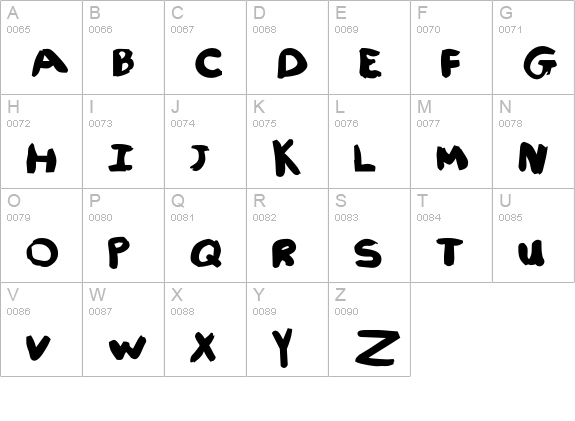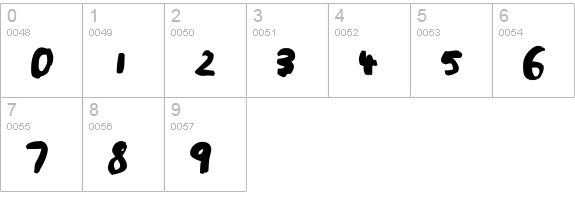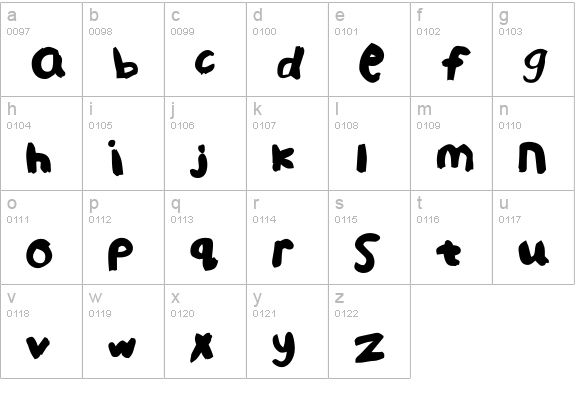
ChildsPlay-AgeNine font is a playful and whimsical typeface perfect for capturing the imagination of young children. With its charming and carefree design, this font brings a sense of joy and creativity to any project. The rounded edges and fun characters make it a delightful choice for children's books, posters, and other designs aimed at a youthful audience. What makes ChildsPlay-AgeNine font even more appealing is that it is freely available to download at FontsMarket.com. This means that you can easily access this delightful font for your projects without any cost. Embrace the fun and lighthearted spirit of Childhood with ChildsPlay-AgeNine font and bring a touch of whimsy to your designs.